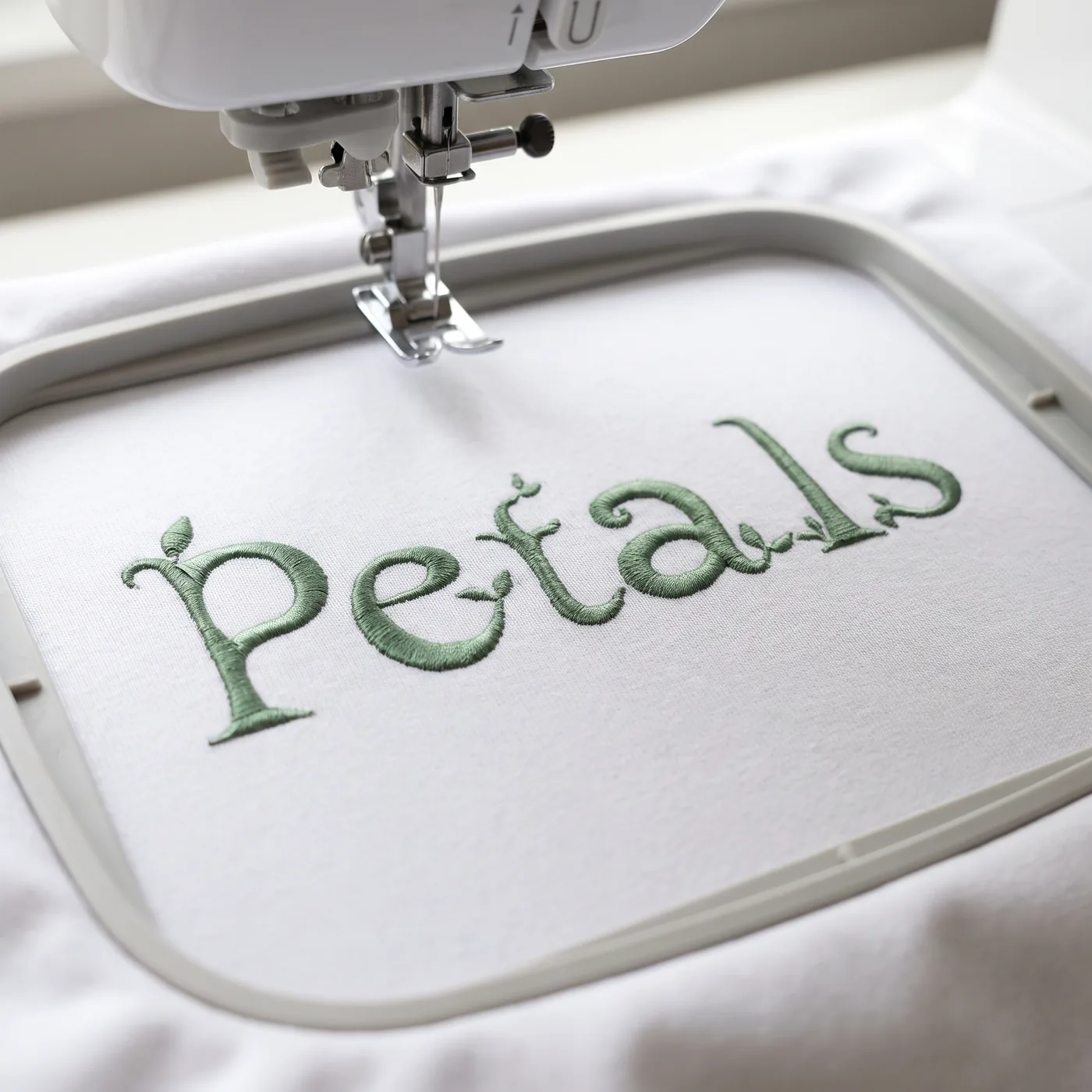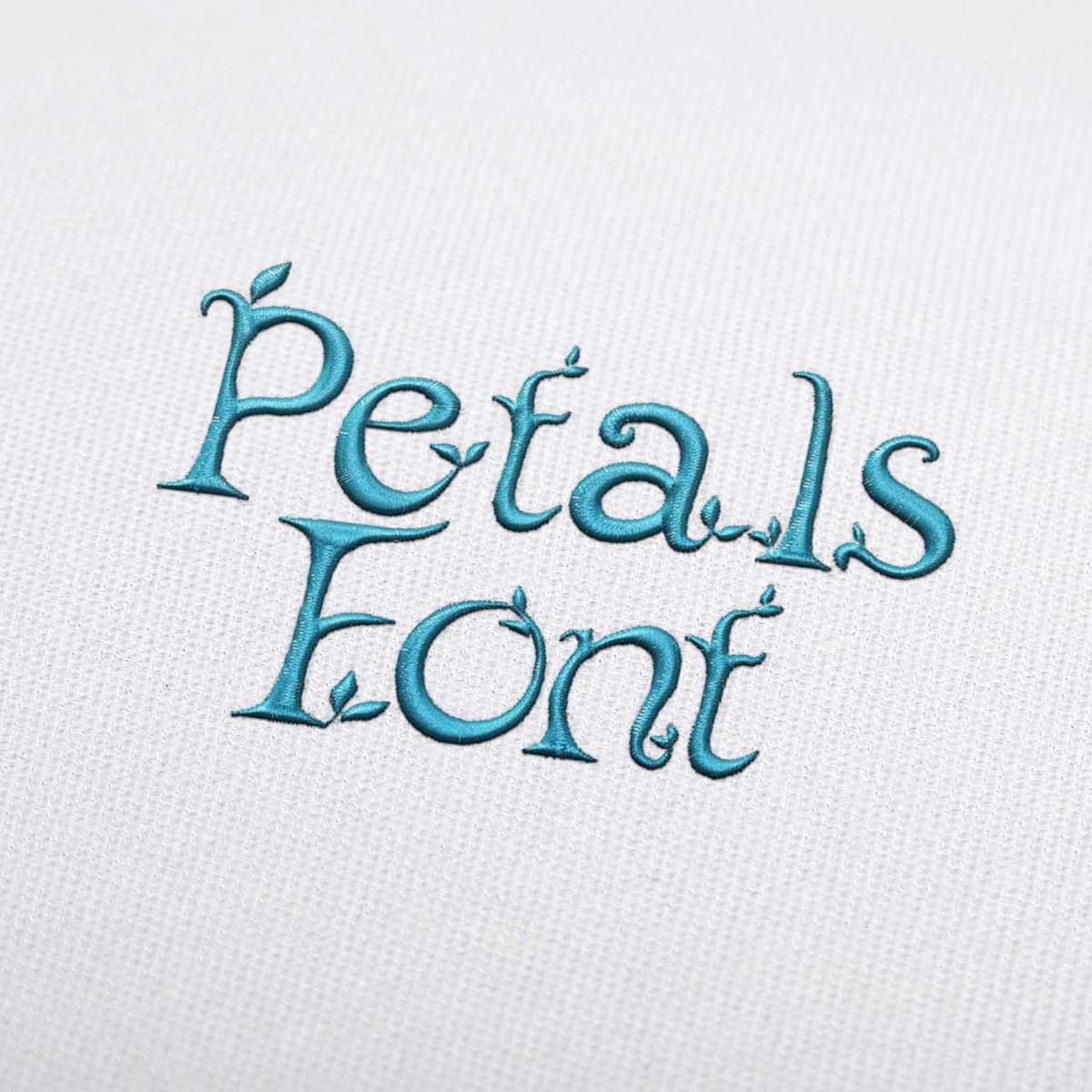
Petals Font Embroidery Design
Petals Font Embroidery Design for tablecloths, napkins, blouses and bed linen. The petals follow the natural stitch direction, which is where the sheen of the thread comes from.
Floral fills catch the light: turn the hoop so the petal stitching runs across the light rather than along it.